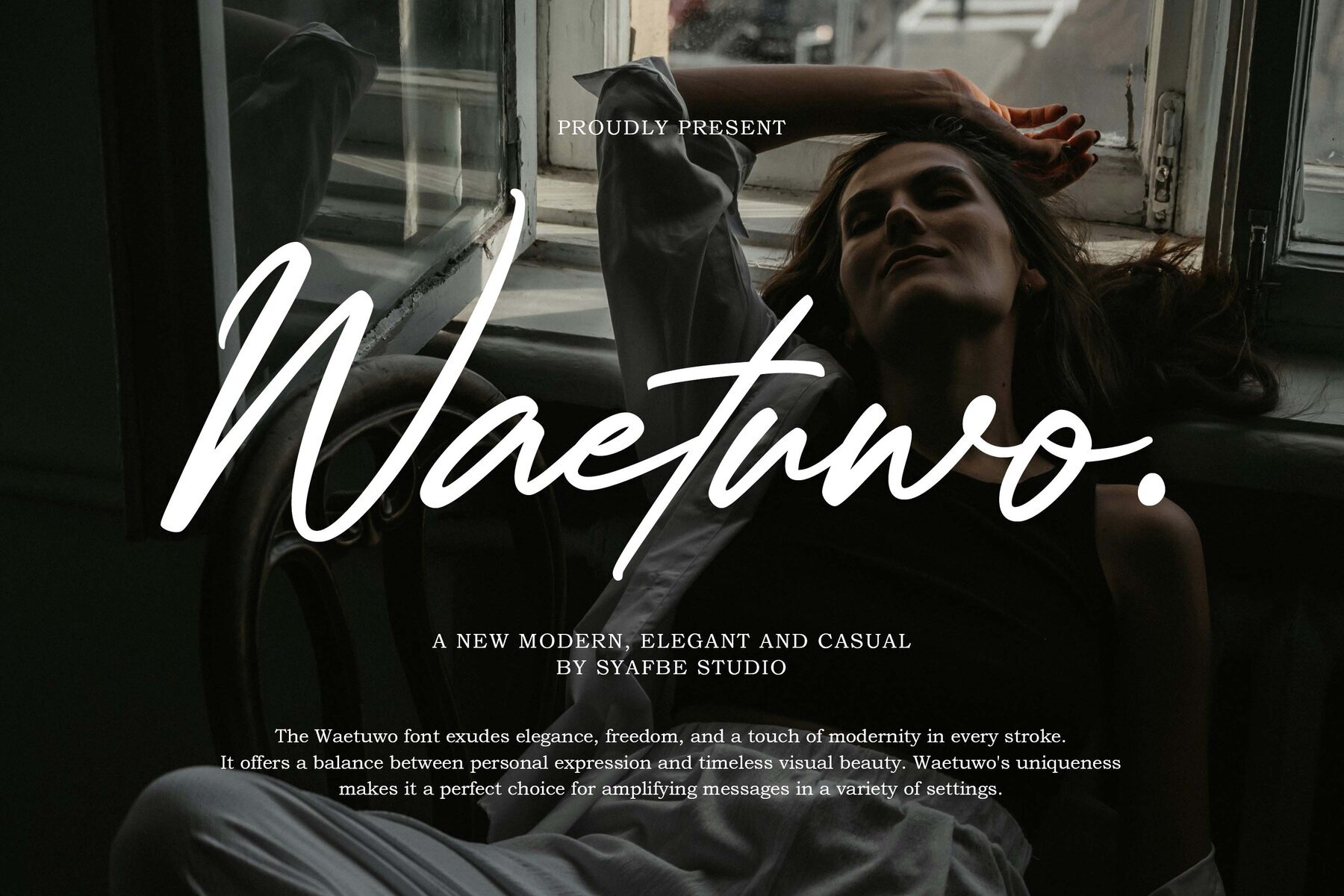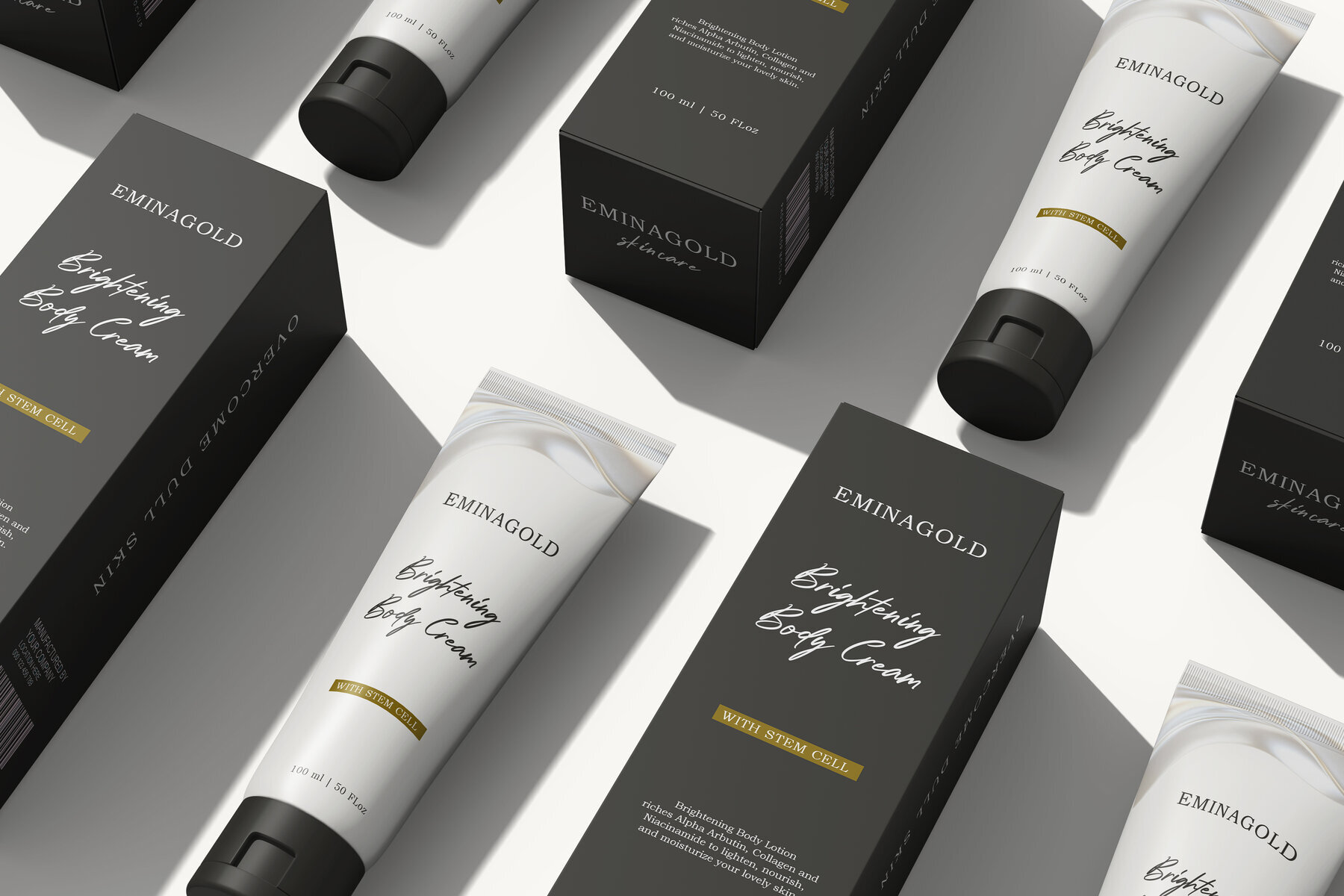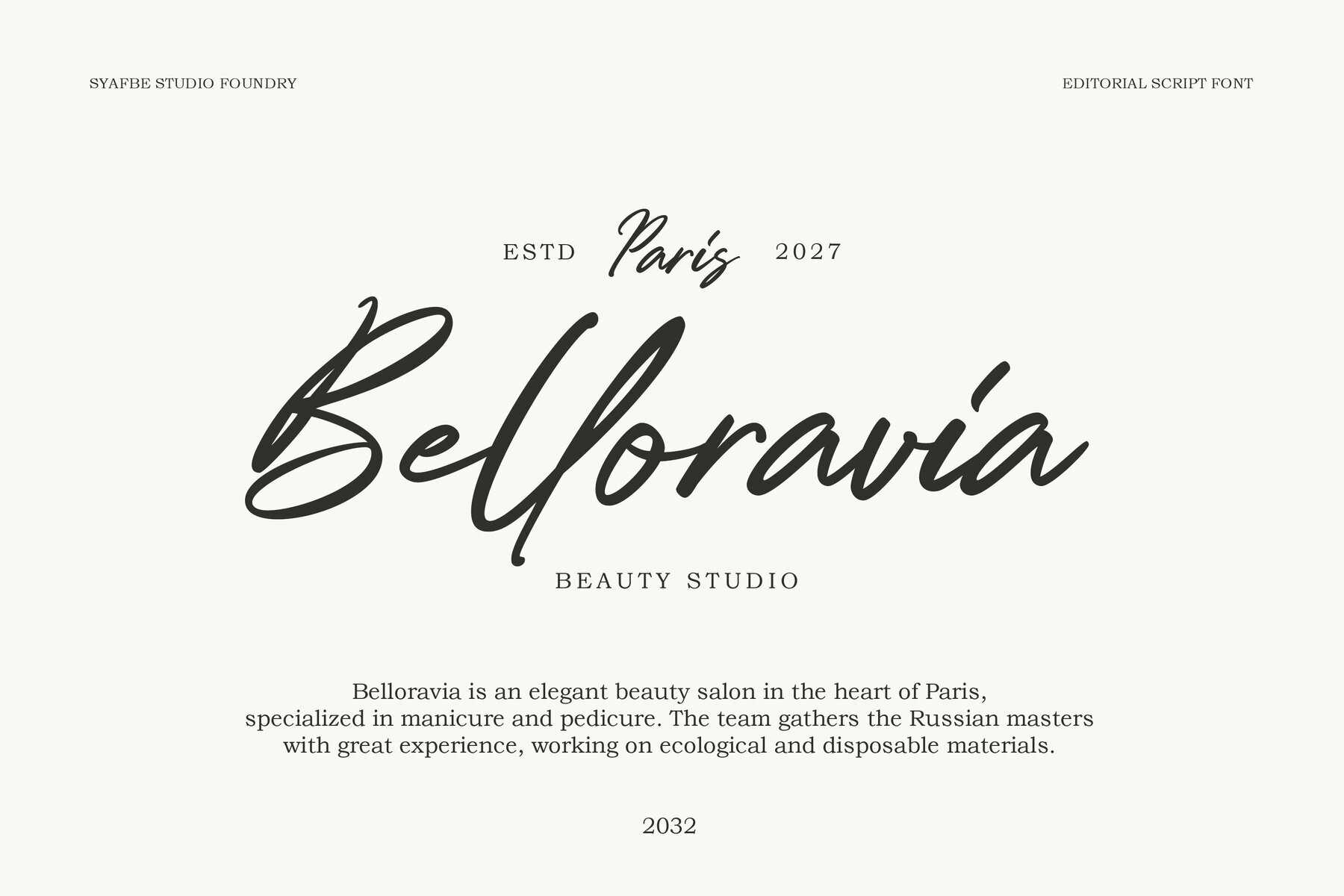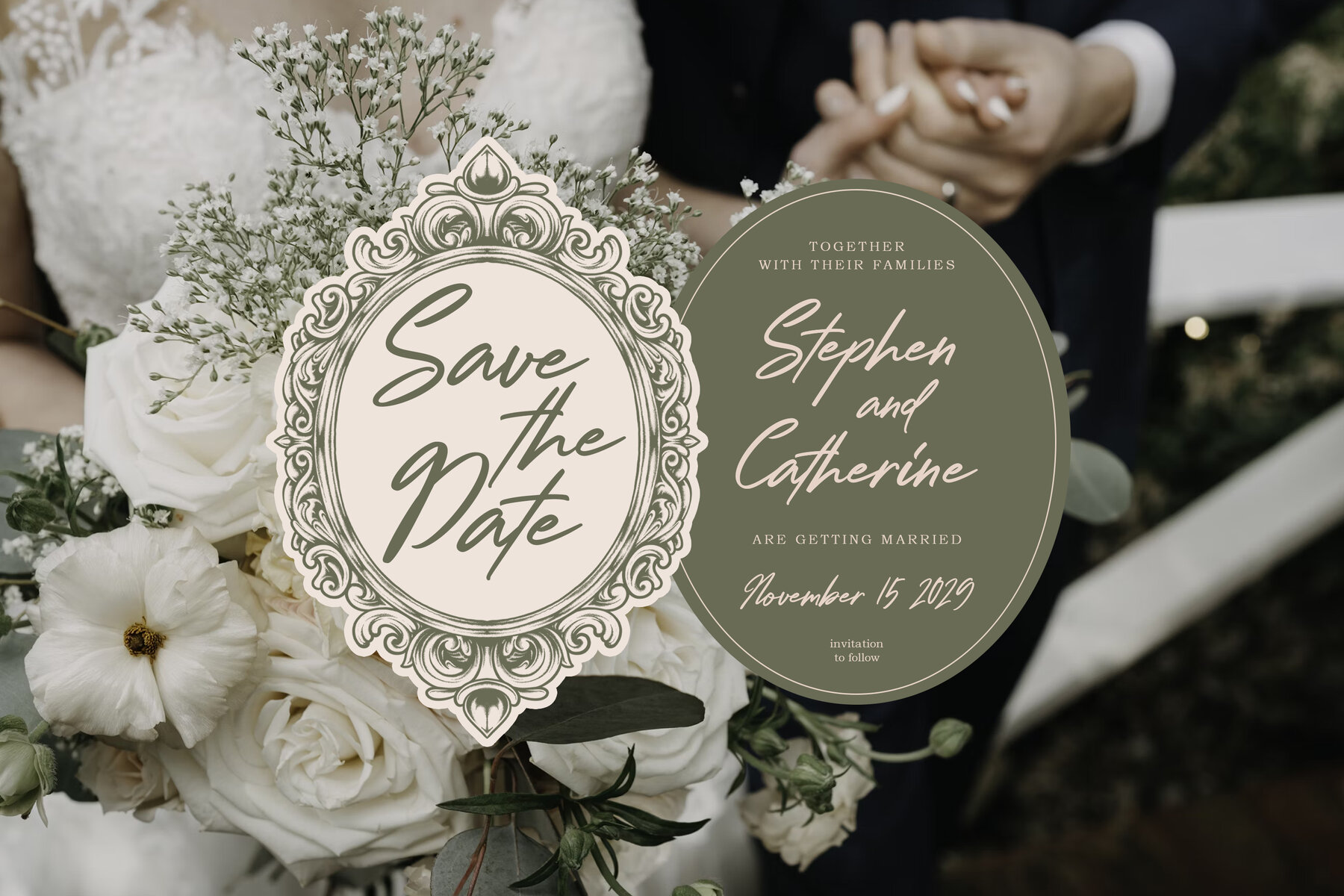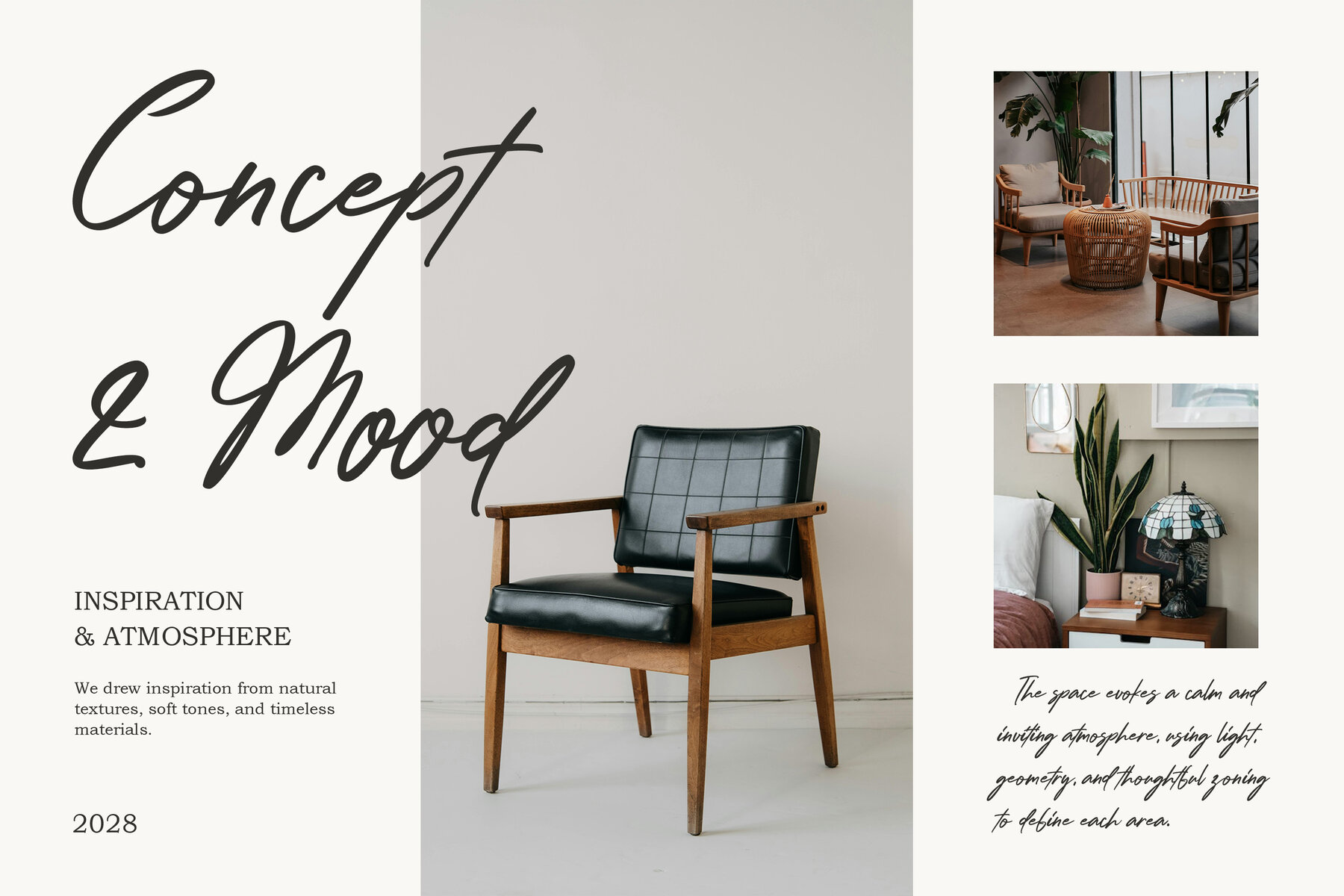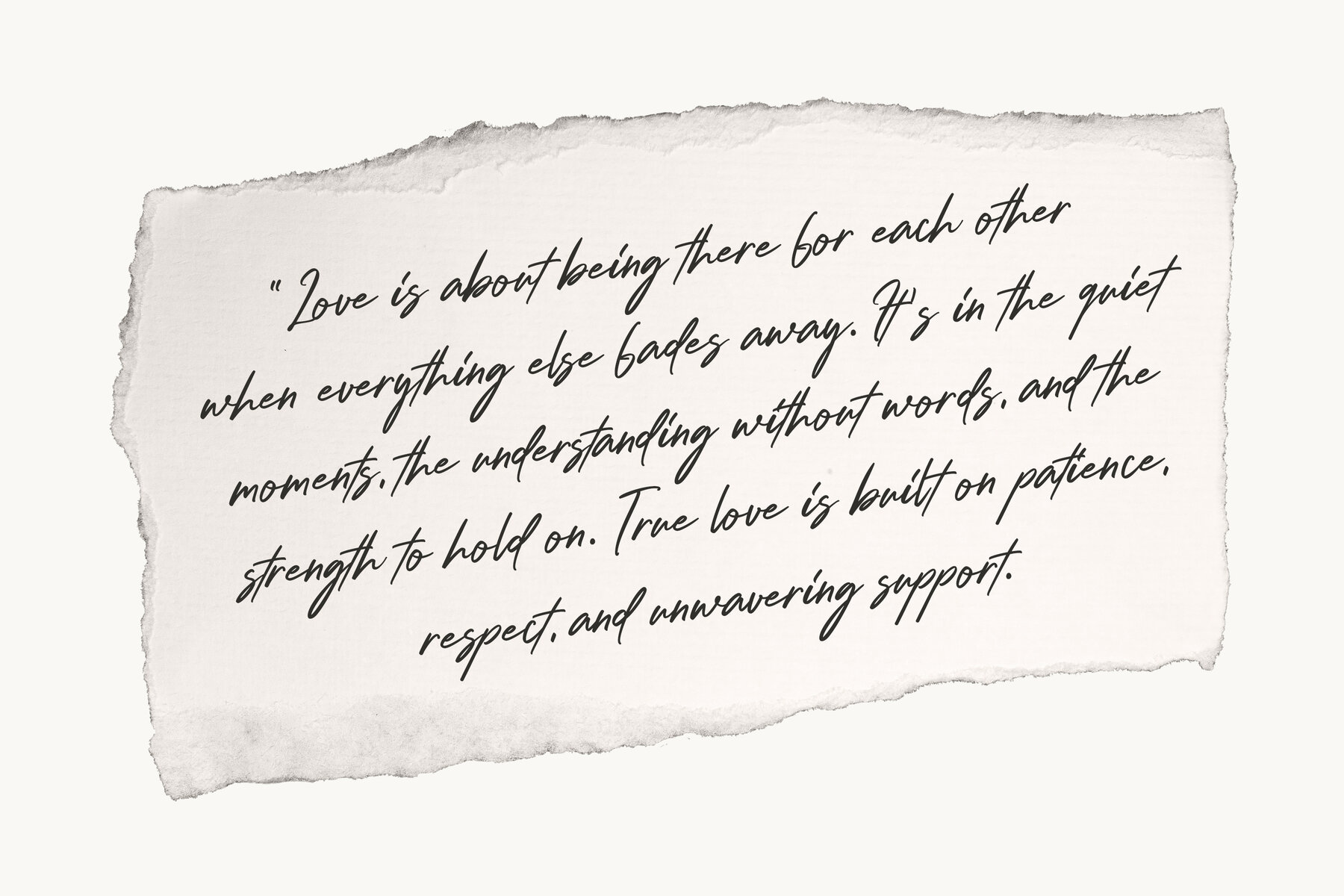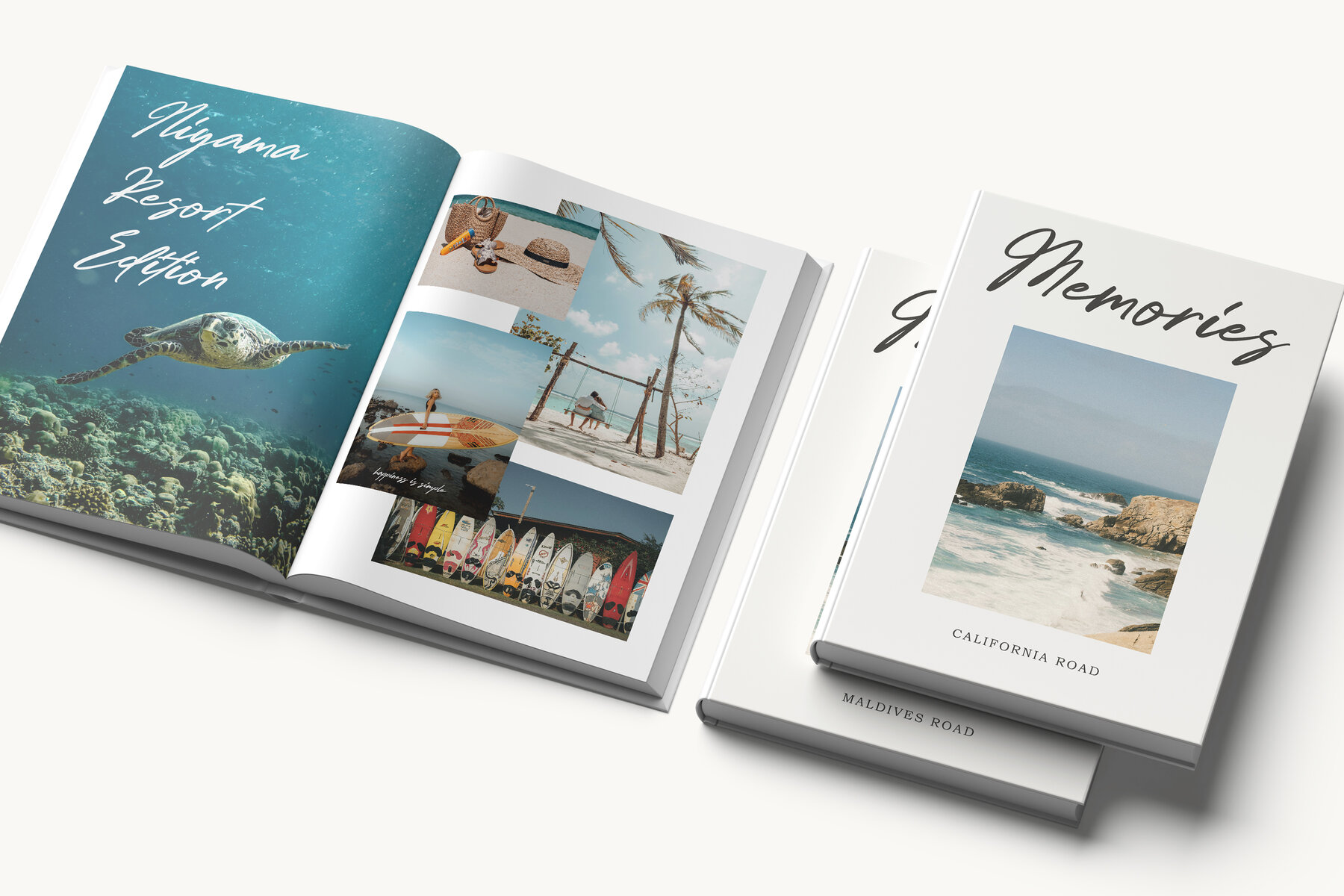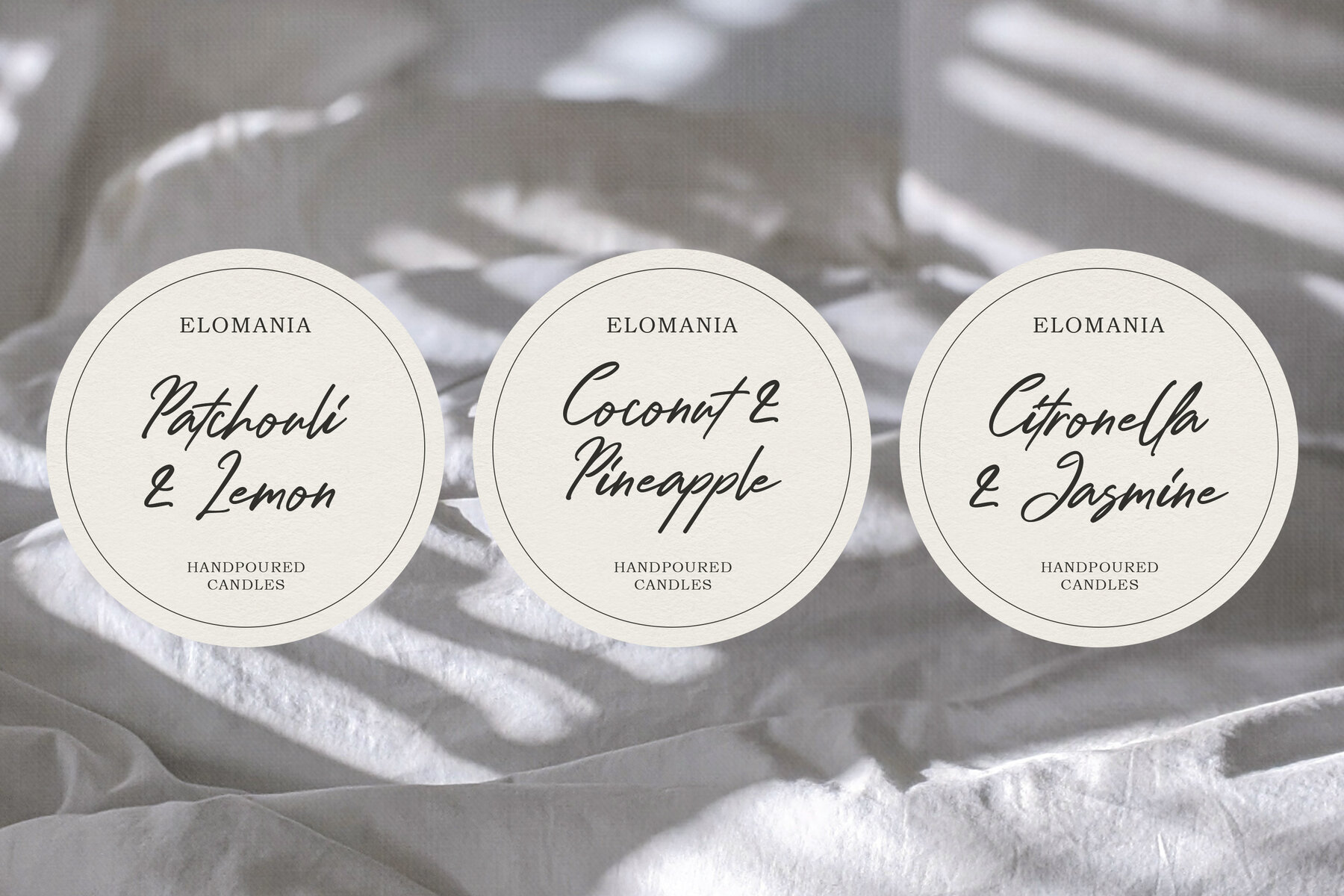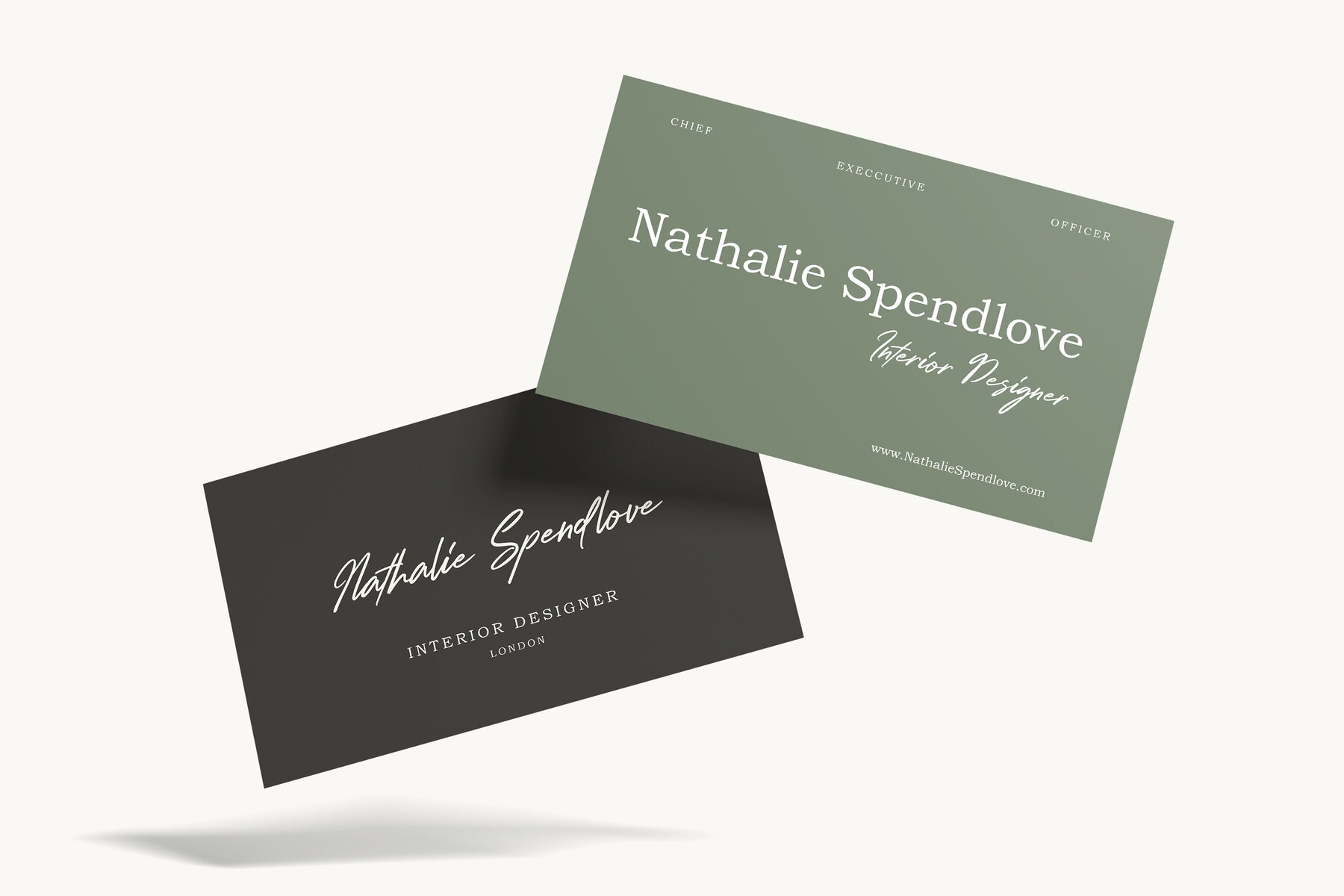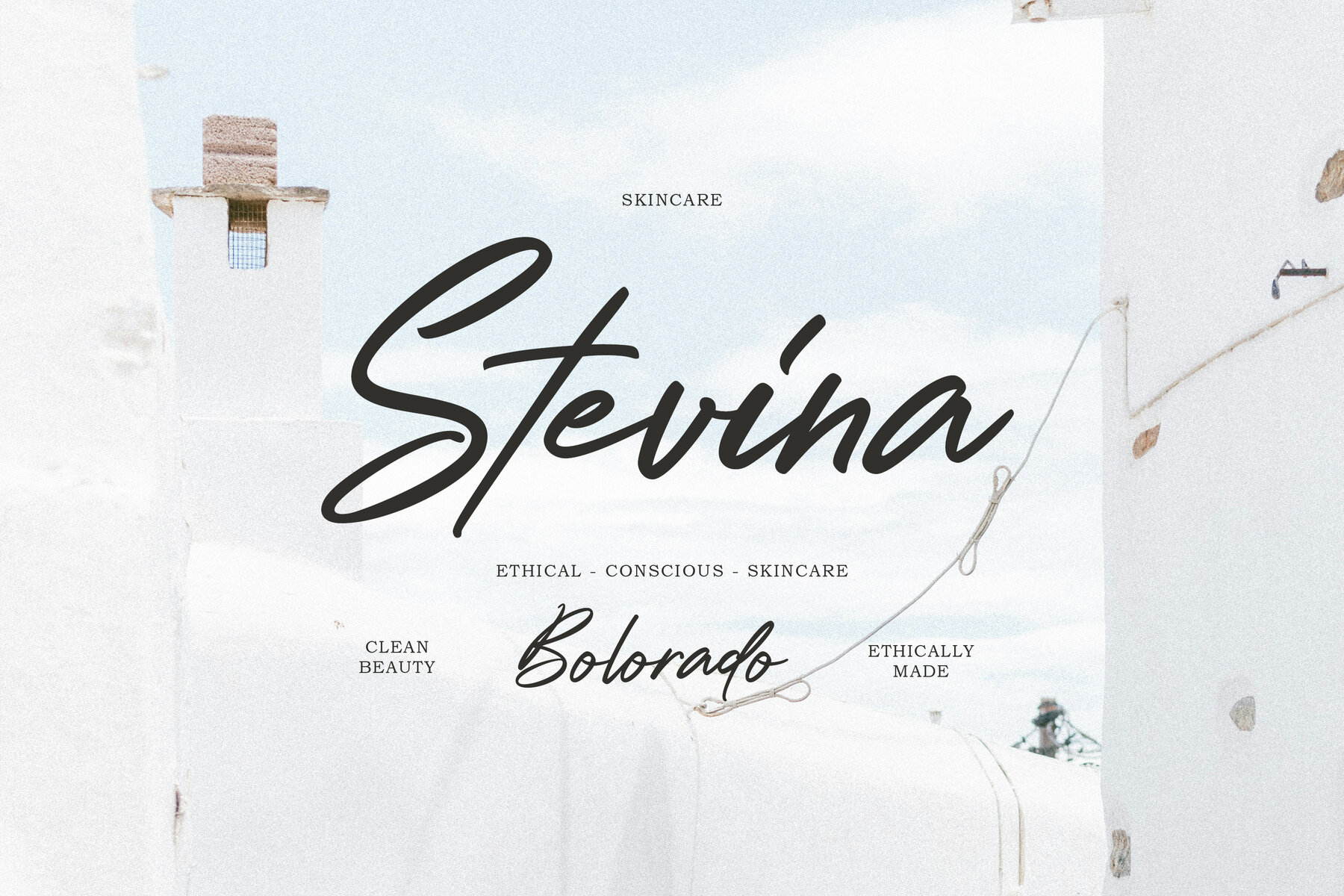
Waetuwo Font
Waetuwo Regular
Waetuwo is a display font that balances modern minimalism with timeless charm. Every curve expresses freedom and sophistication, lending each letter a graceful and effortless character. Inspired by both contemporary trends and classic lettering, Waetuwo brings a sense of authenticity to digital and print designs while maintaining an inviting warmth and clarity. This font encourages creative expression in a variety of settings. Whether designing for fashion, beauty, culinary projects, wedding materials, photography portfolios, or corporate brand identities, Waetuwo creates a strong visual presence. Its refined yet approachable style makes it ideal for messages that call for personality and a memorable aesthetic.Waetuwo: Modern Simplicity Meets Classic Elegance